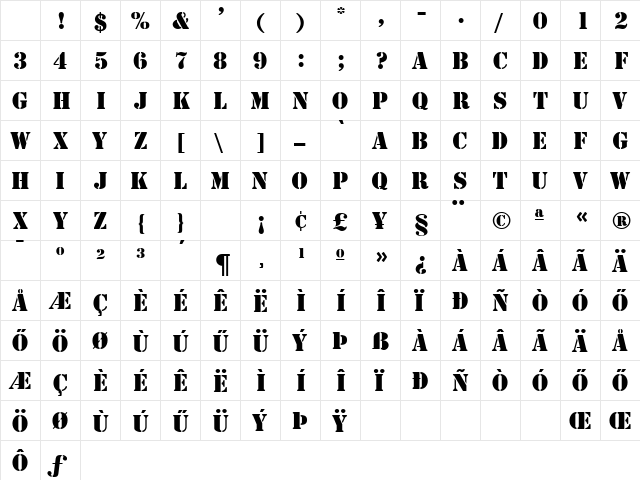
Complete Hu_Stamp Plain WS Regular glyph index. Displaying only characters natively supported by Hu_Stamp Plain WS Regular font.
Hu_Stamp Plain WS borrows the utilitarian aesthetic of stencil lettering, with its characteristic cutaways and no-frills construction lending an industrial edge.
Pro Tip: Use Hu_Stamp Plain WS at large sizes on packaging, posters, or apparel where the stencil cutaways read clearly. Avoid small sizes where those gaps become visual noise.